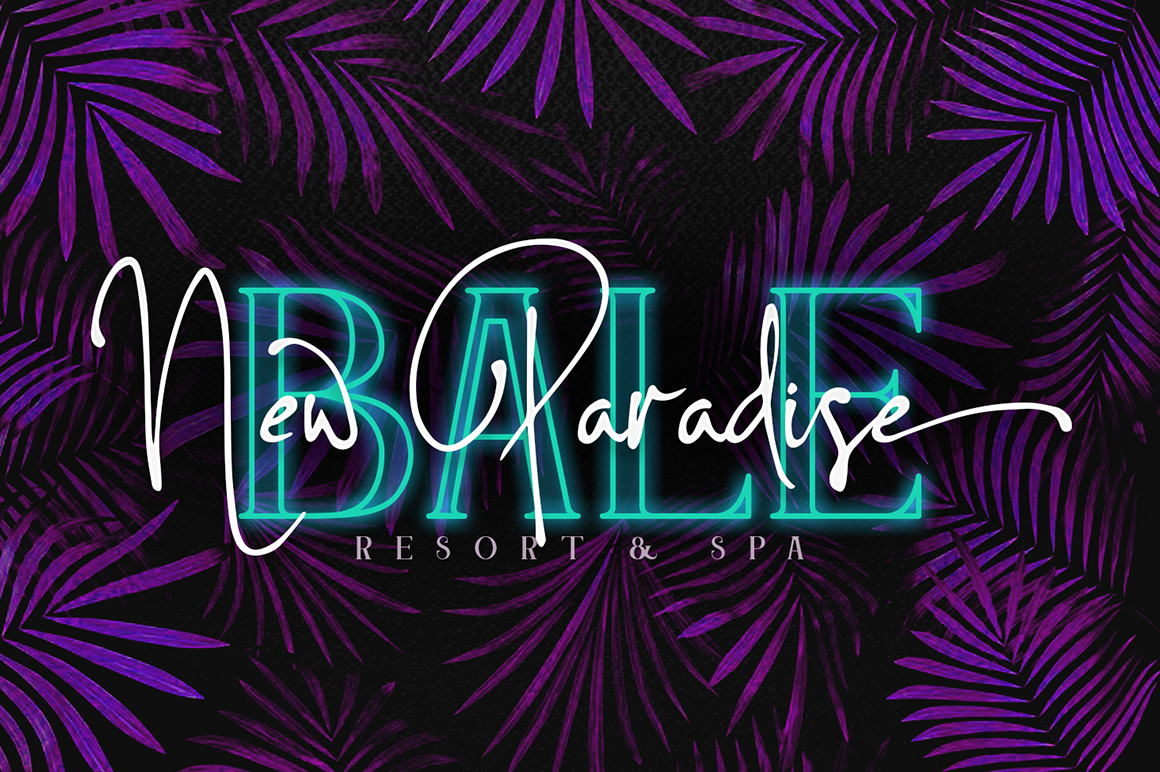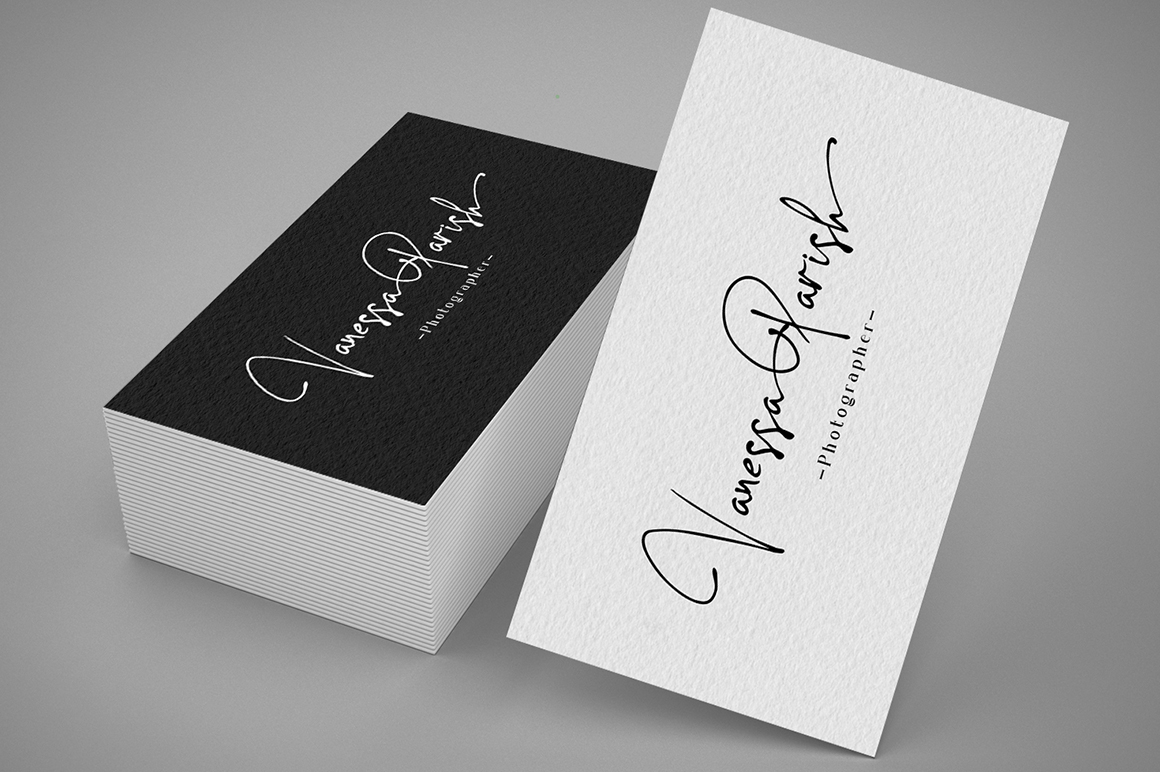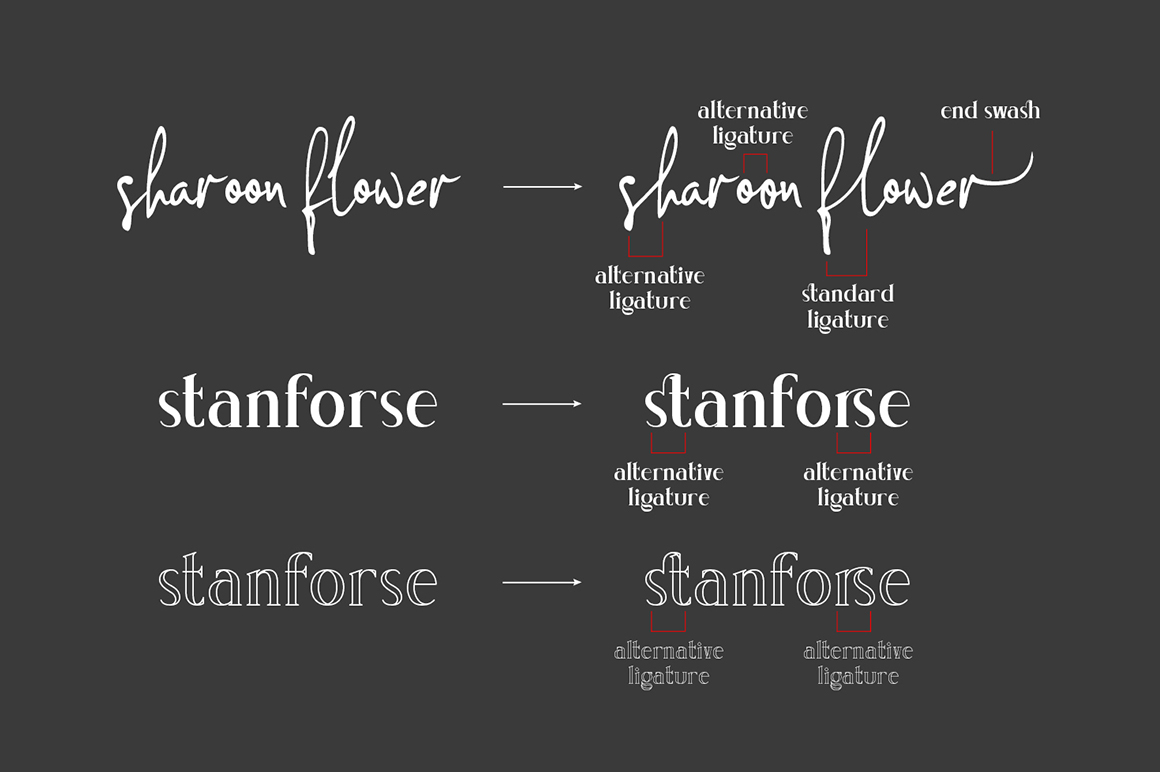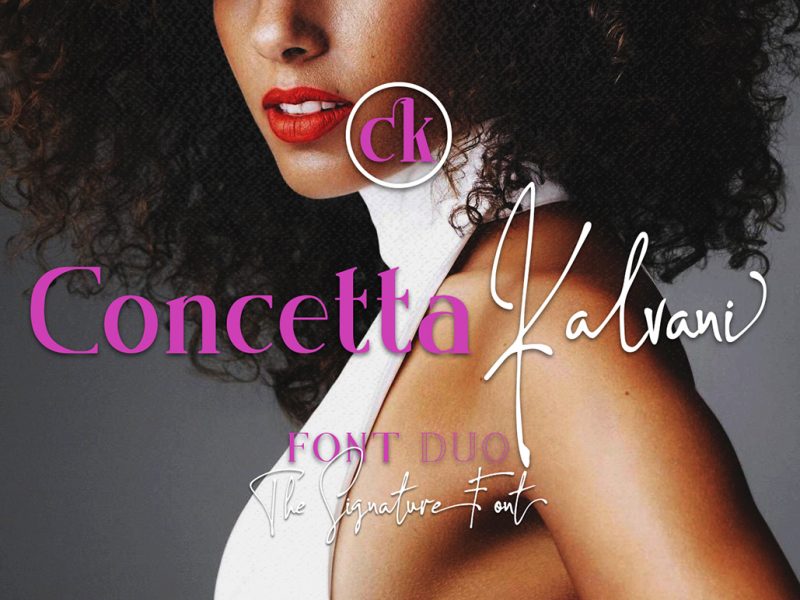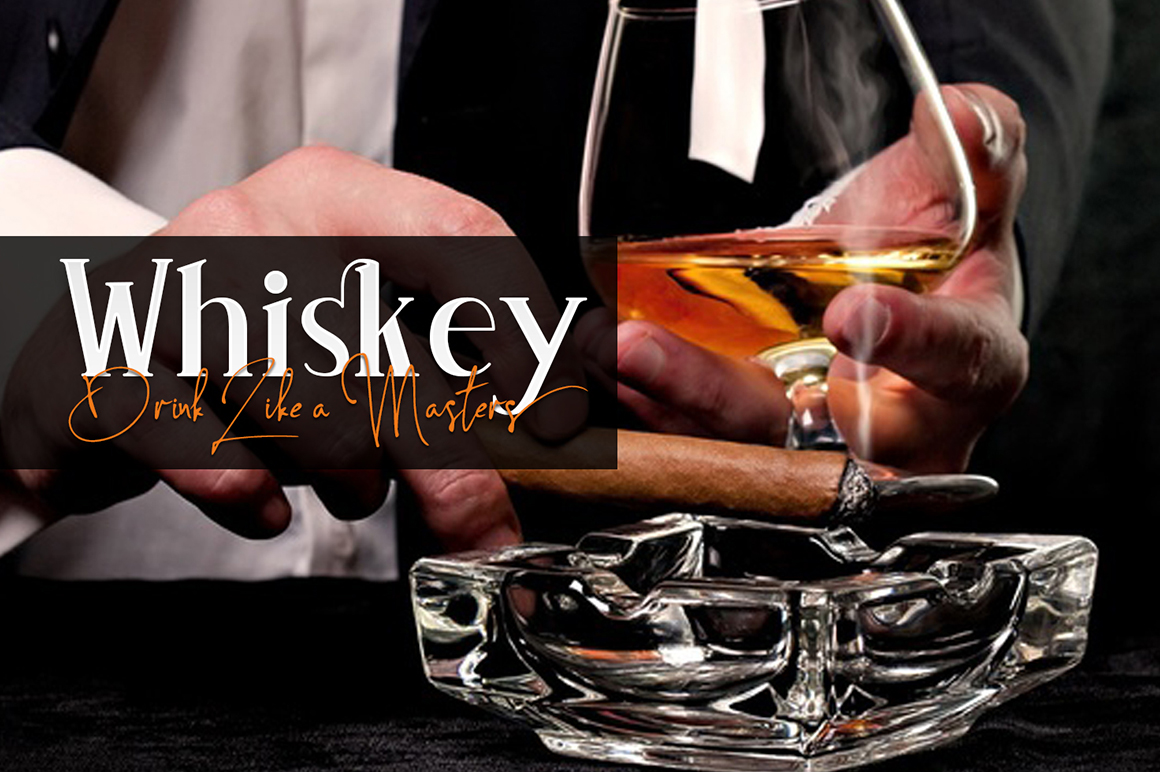
Concetta Kalvani Signature Font
Really excited to introduce Concetta Kalvani is classic signature font and serif font with two variation regular and outline style. Concetta Kalvani perfect for poster design, book covers, merchandise, fashion campaigns, newsletters, branding, advertising, magazines, greeting cards, album covers, and quote designs and more.